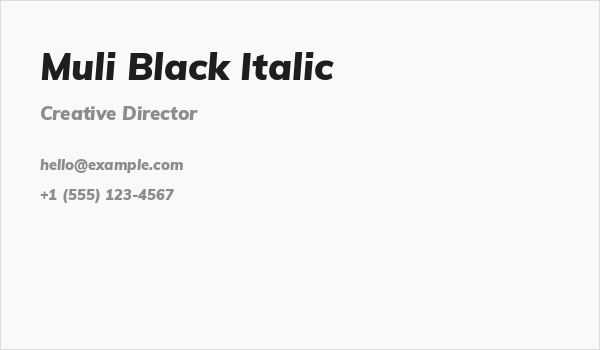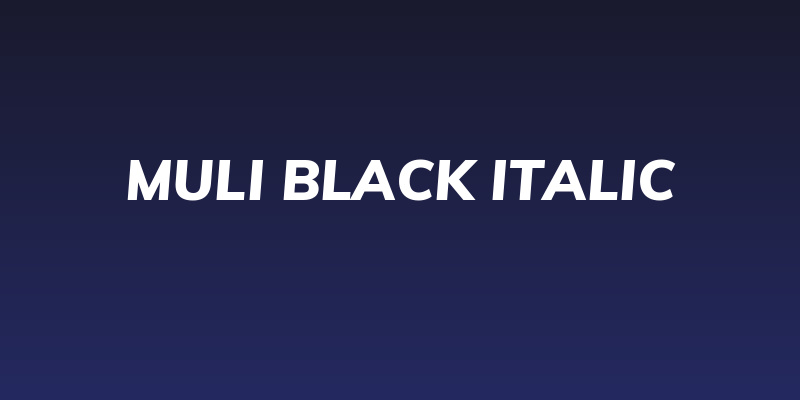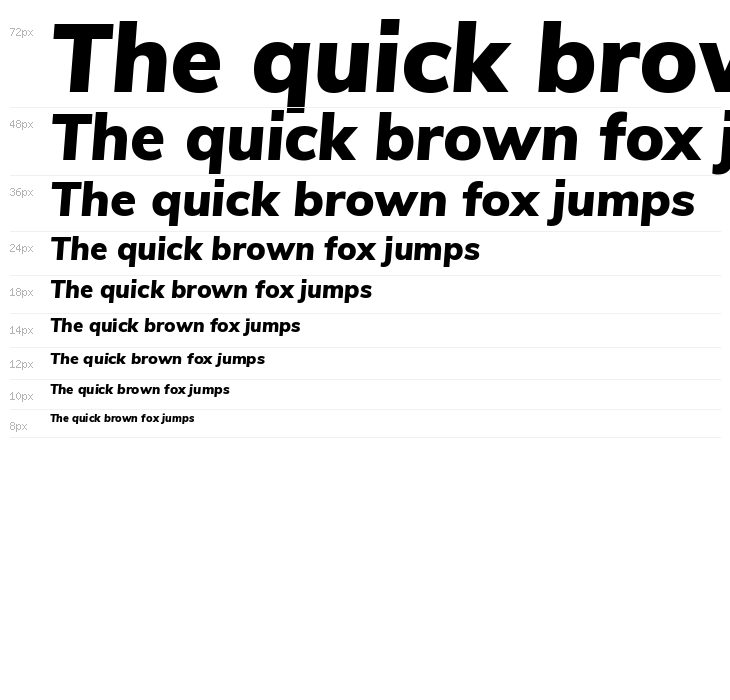
Muli Black Italic Font
Muli Black Italic Description
This font features a bold and italicized style, characterized by its strong presence and dynamic slant. The letters are thick and robust, providing a sense of authority and modernity. The uppercase and lowercase letters maintain a consistent weight, ensuring readability and uniformity. The numerals and special characters are designed with the same boldness, making them stand out effectively. The overall design is clean and contemporary, suitable for various applications where emphasis and clarity are needed.
| Proposed Projects | Ideal for headlines, posters, branding materials, and any design requiring a strong visual impact. |